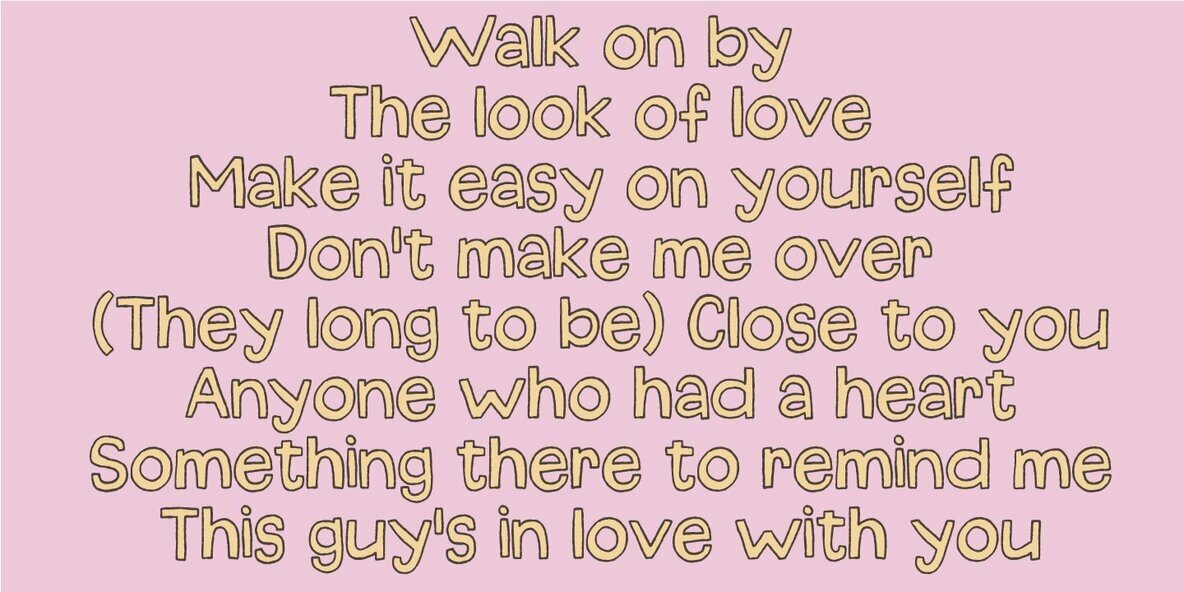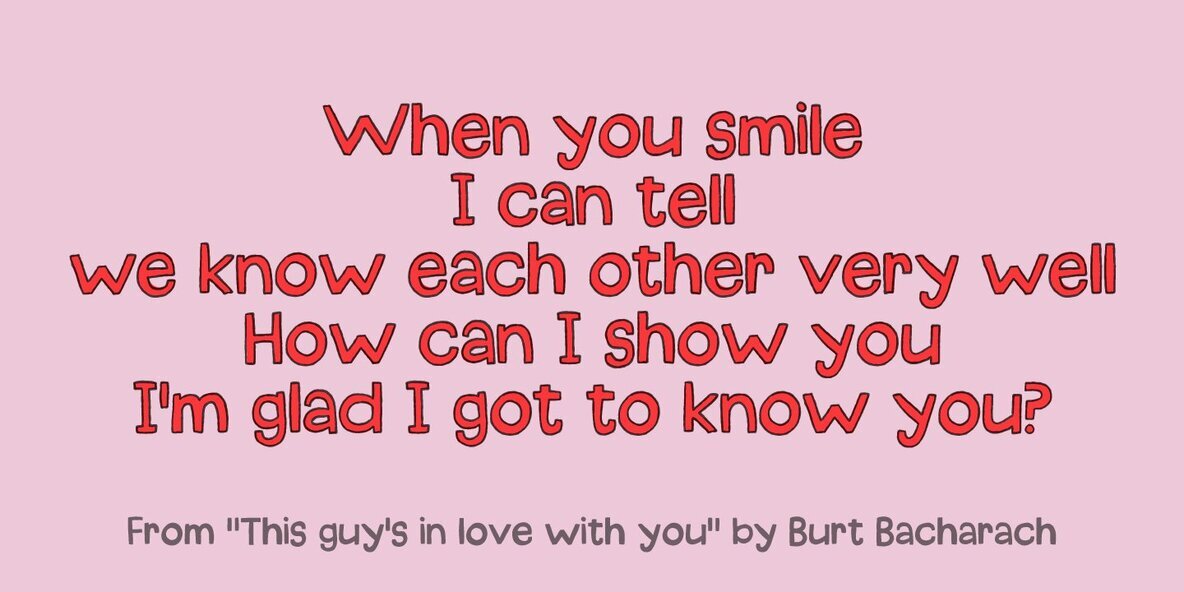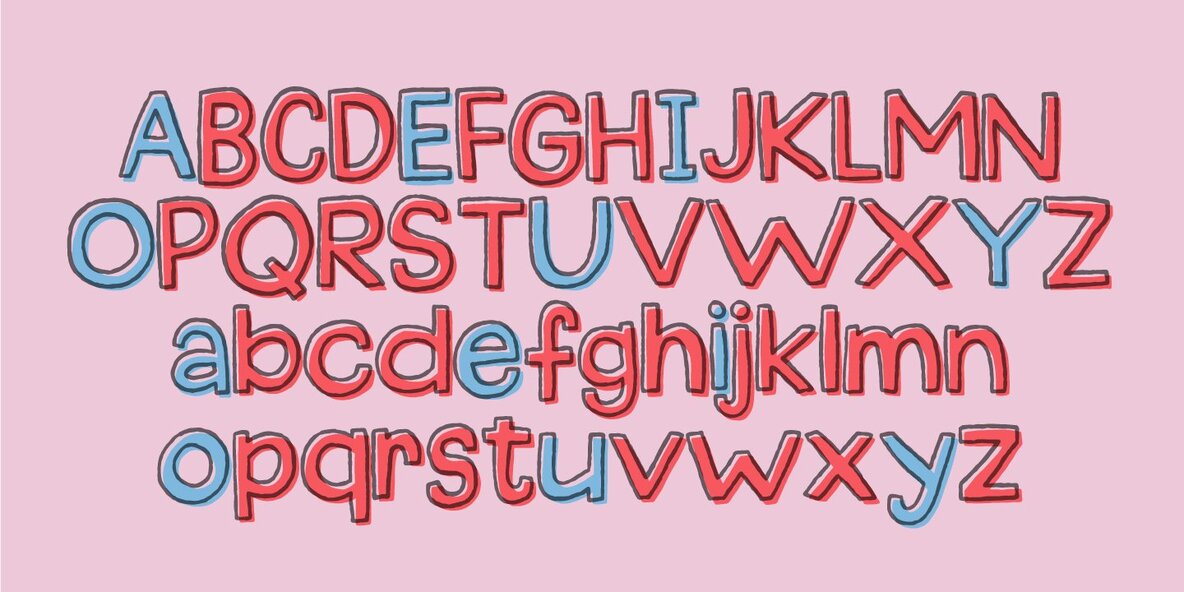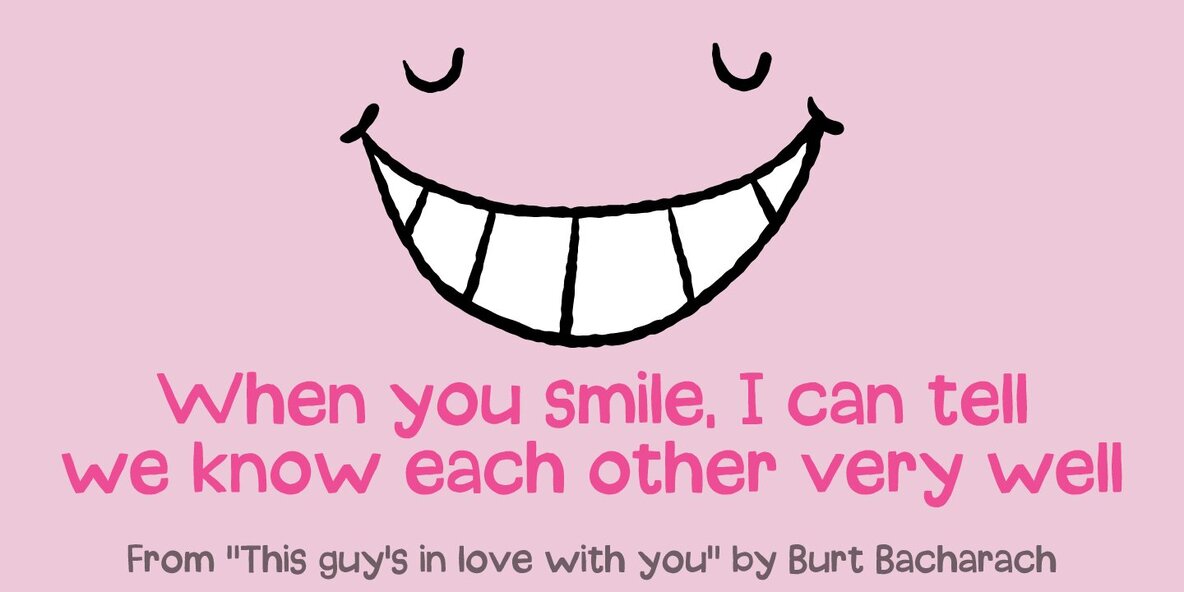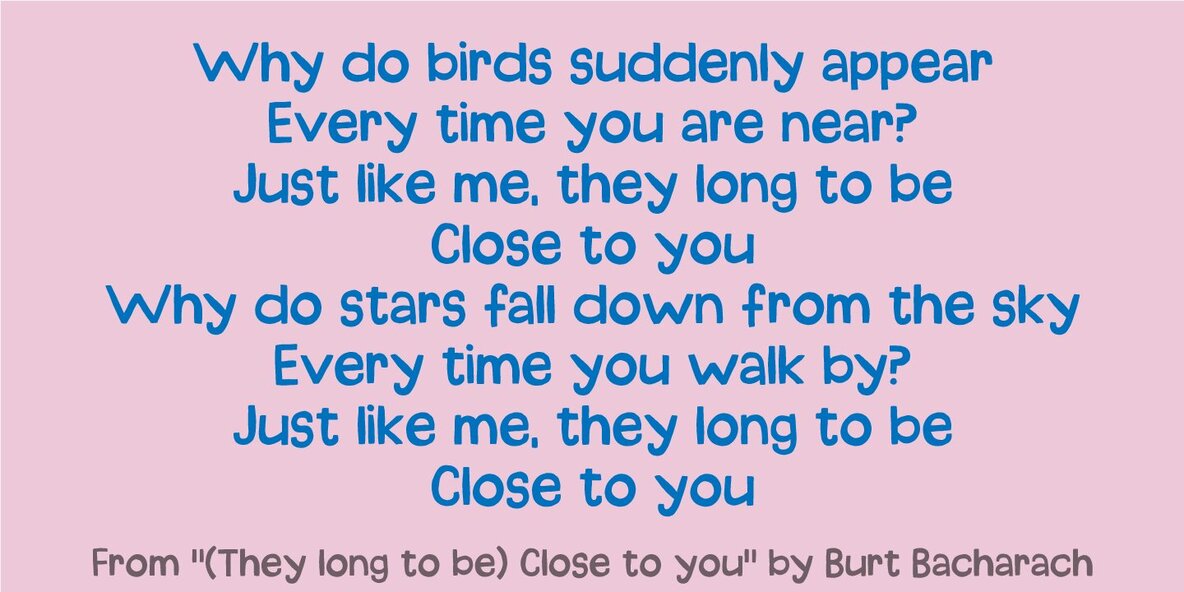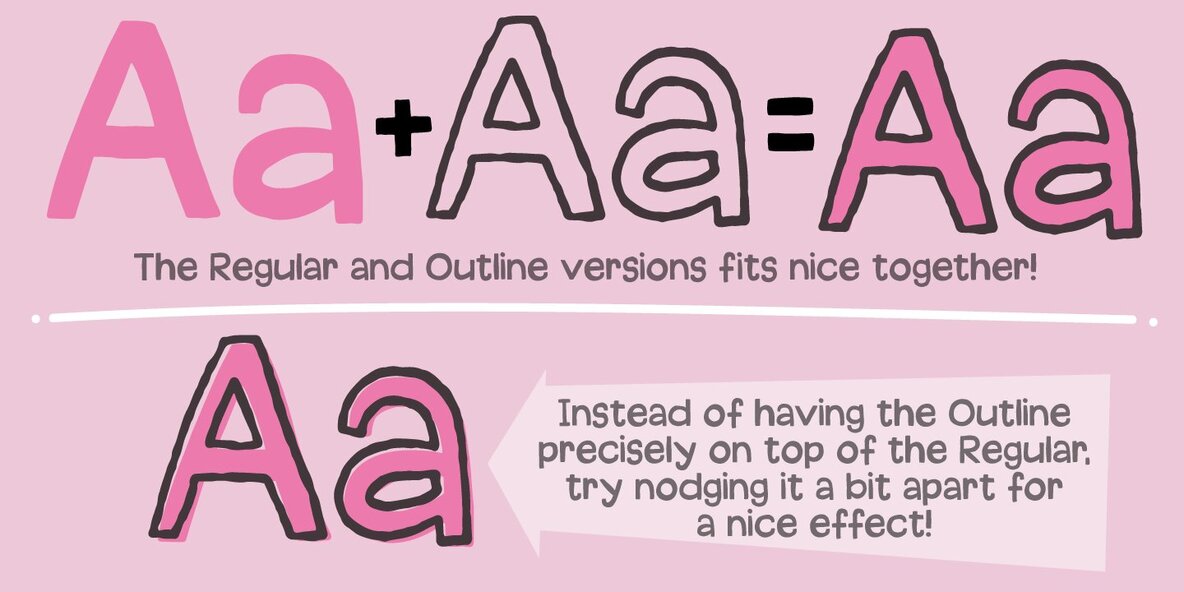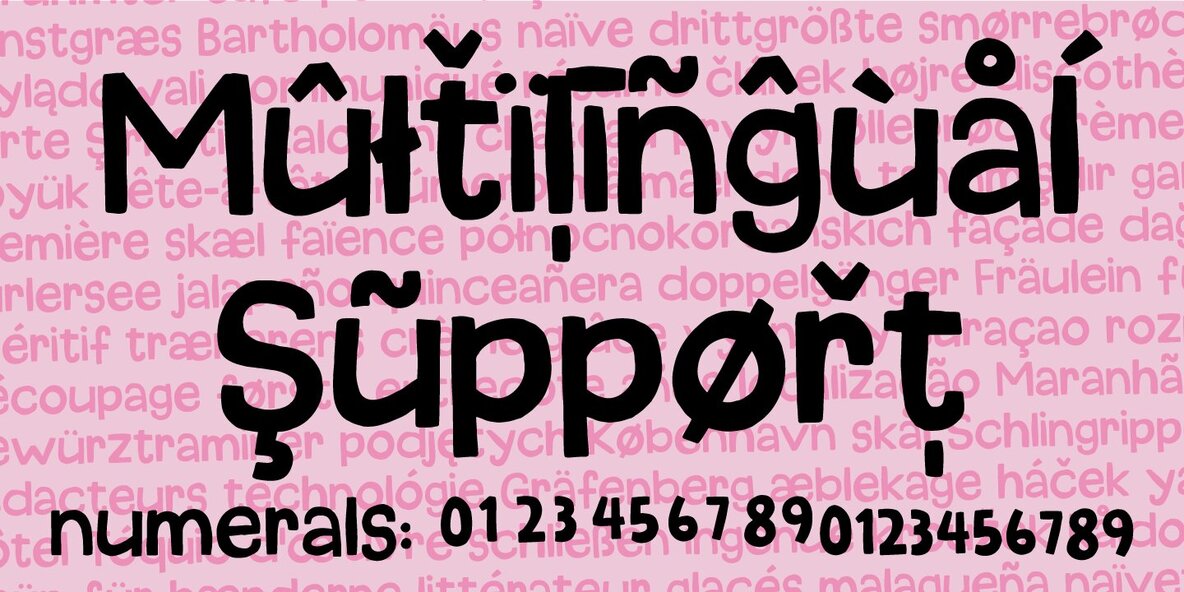
Mister B Font
Mister B is my go on a handmade organic font. The letters are clumsy, with the width and height somewhat off here and there. Nevertheless, the result is a naive and charming font, which is suitable for most things that has to do with kids toys, organic products or comics.